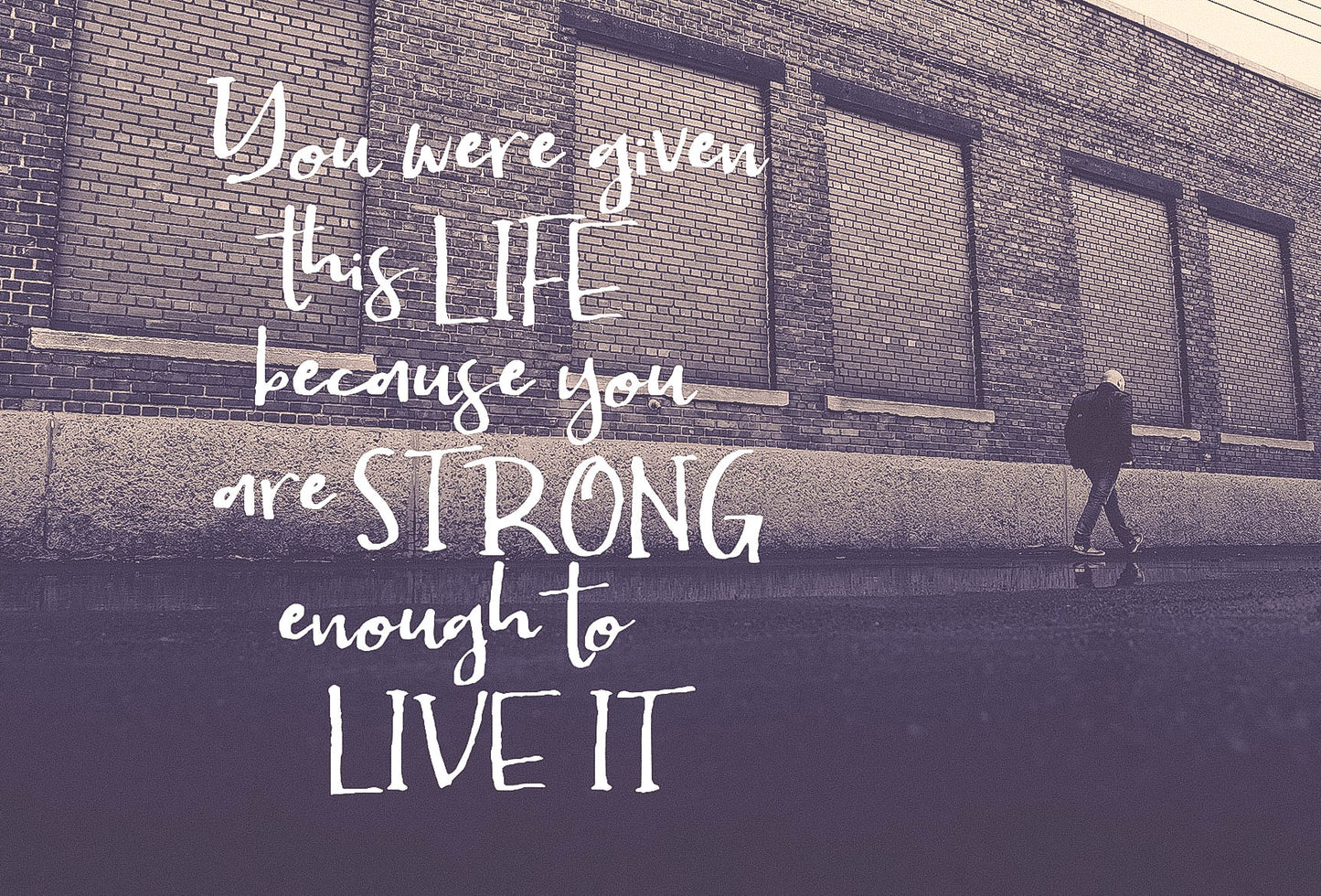
Free Hector Handwritten Font
Take a look at this adorable free hector handwritten font. This font file was found from the amazing source called Pixelify. You can create a professional designs with this beautiful font.